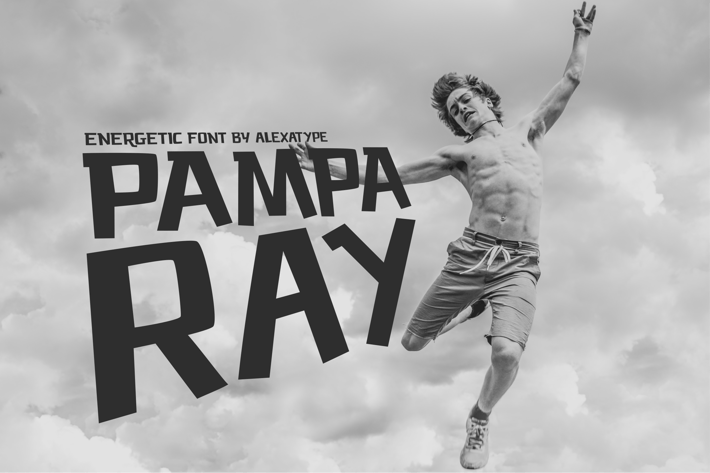
PAMPARAY - Energetic Font
An all caps font with slight different between upper and lowercase, full of energy, with great read-ability shape.
Perfect for any sport related poster, headlines, and so on.
An all caps font with slight different between upper and lowercase, full of energy, with great read-ability shape.
Perfect for any sport related poster, headlines, and so on.